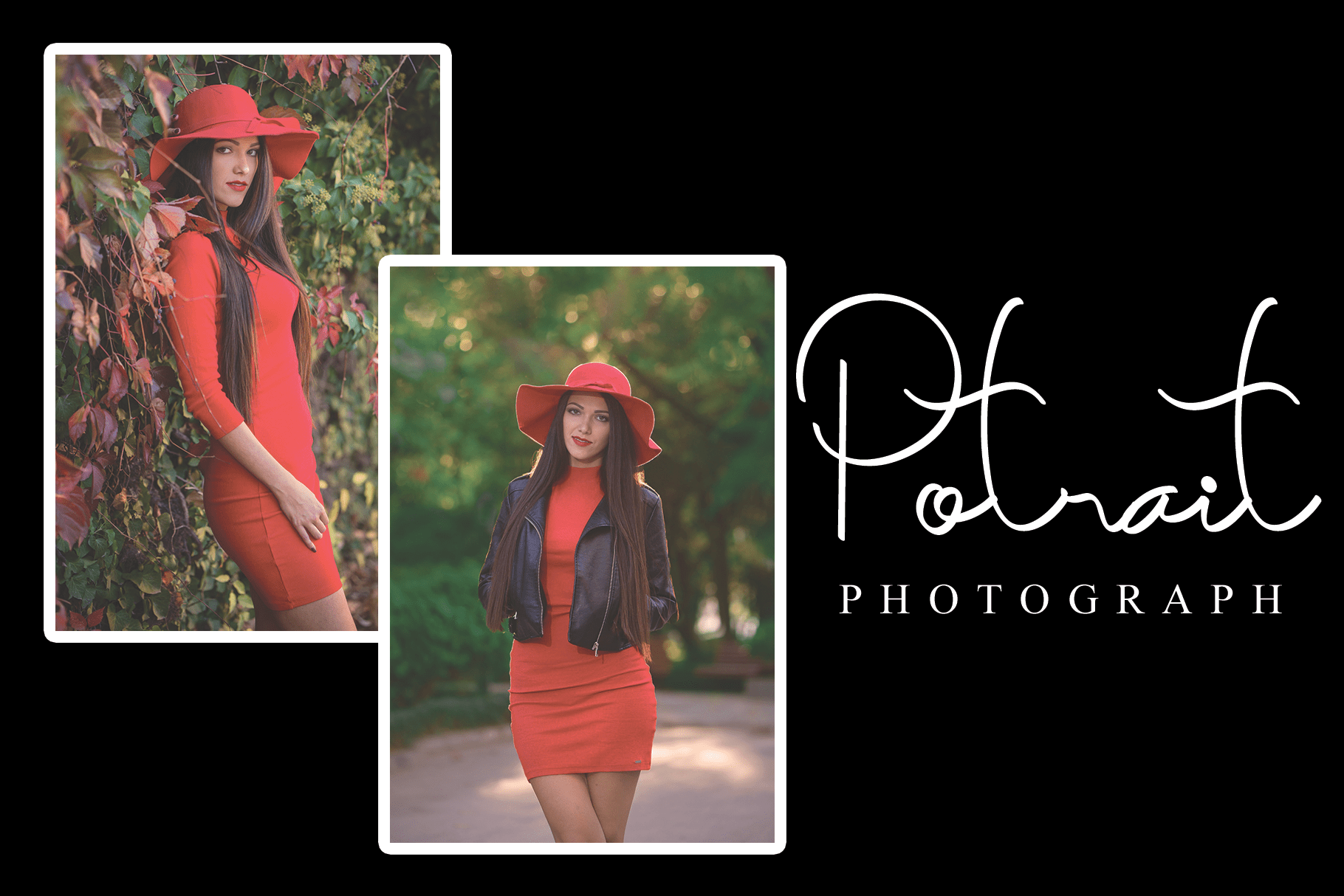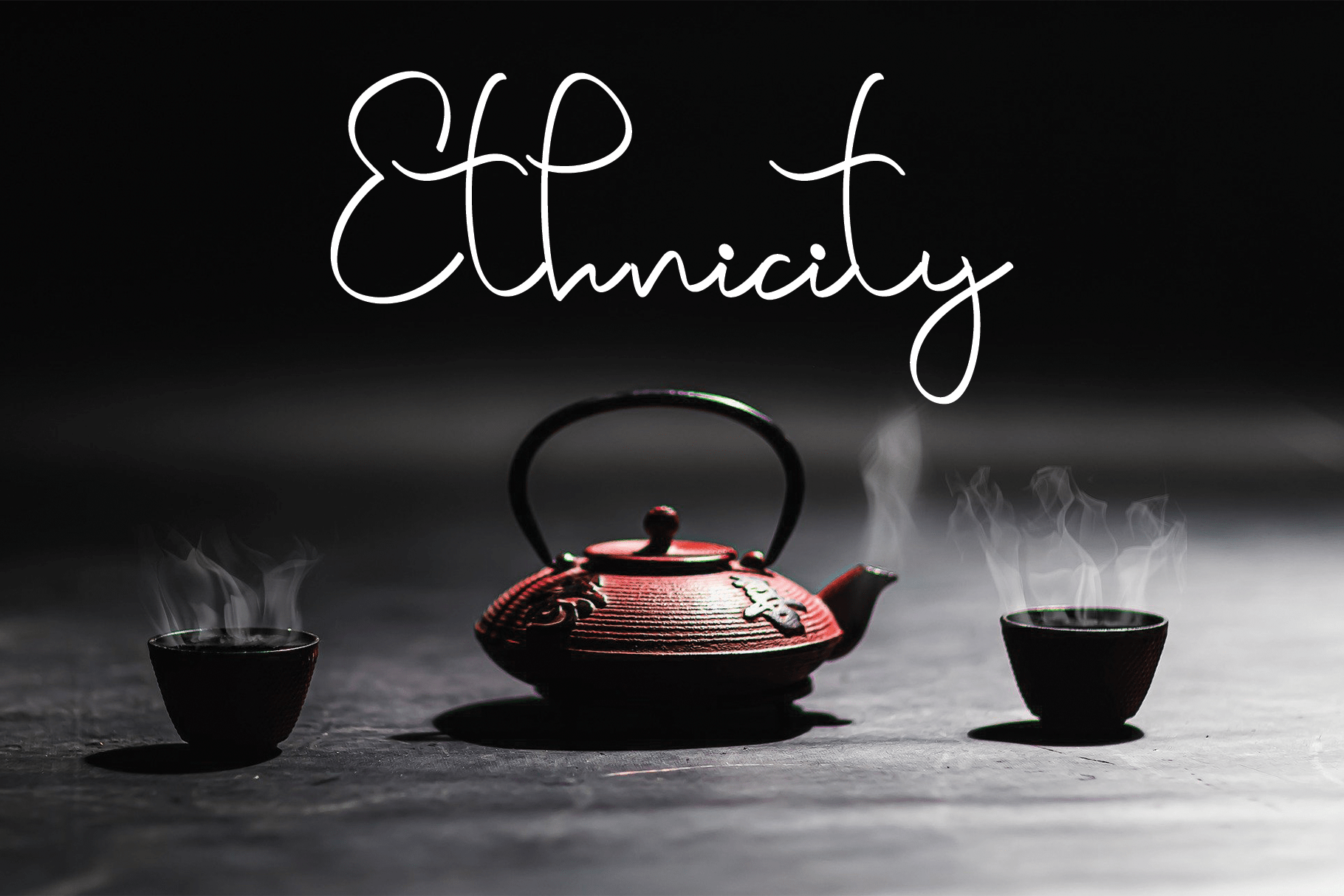
Ryana Font
Ryana Script Font
This is a fashionable and relaxed script font. This font is neatly crafted and highly detailed. Whatever the topic, this font will be a wonderful asset to your font library, as it has the potential to enhance any creation.